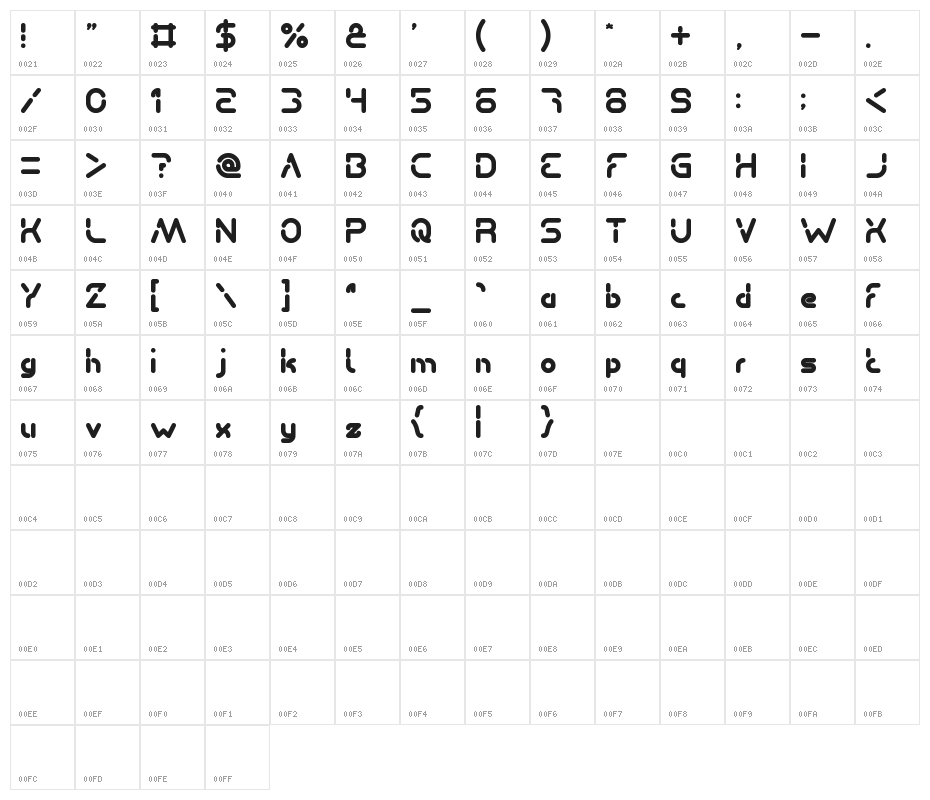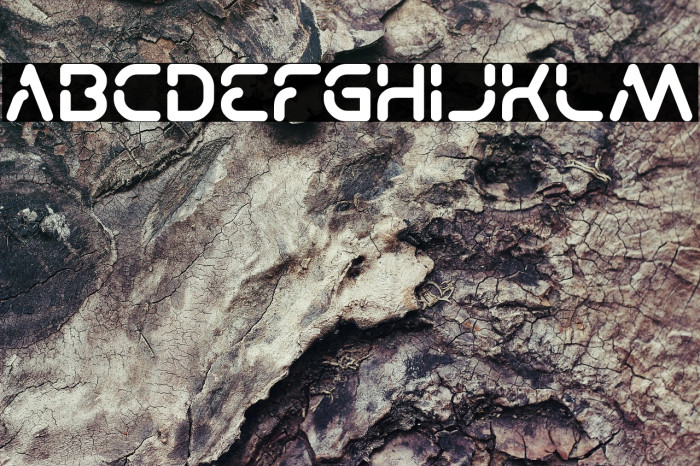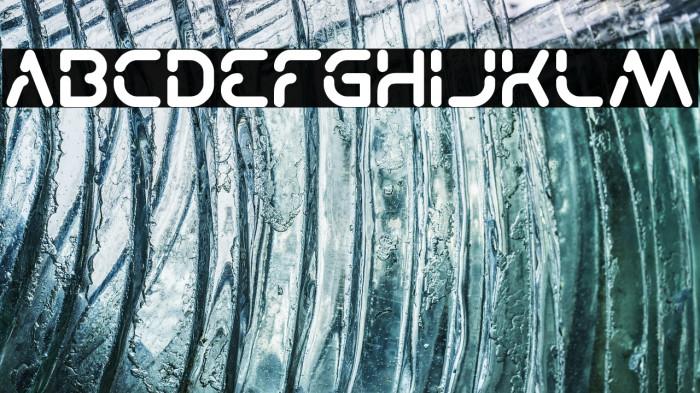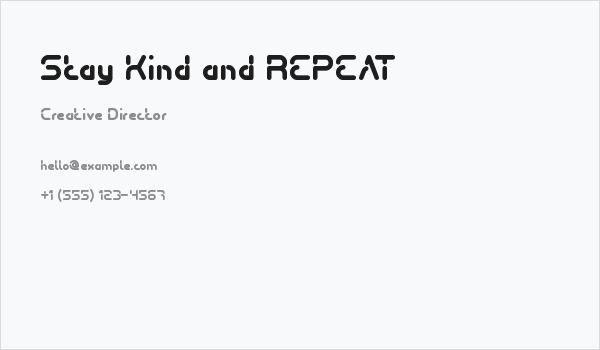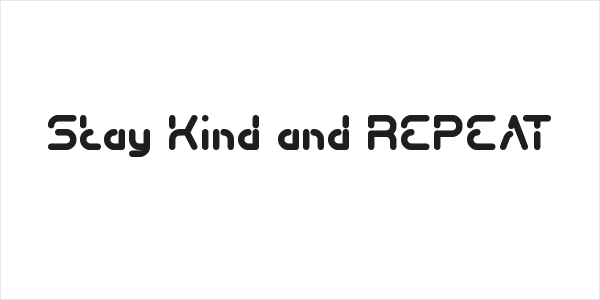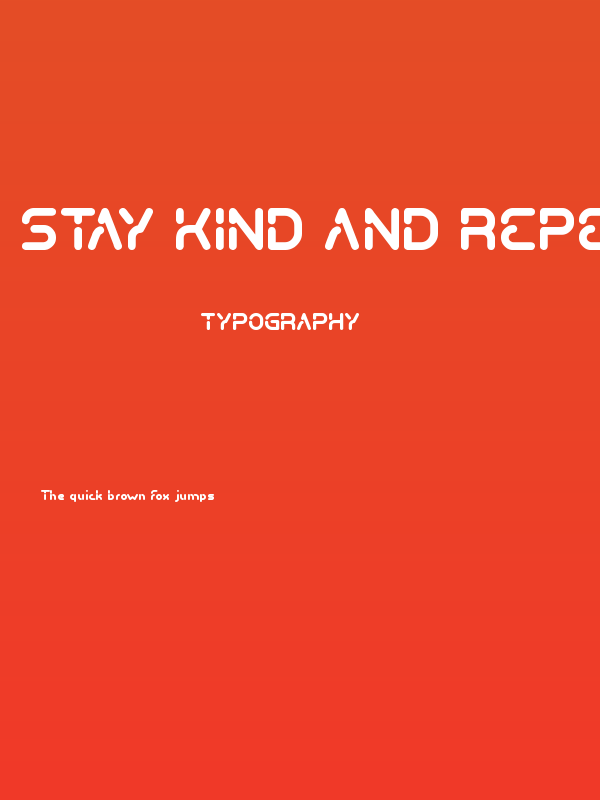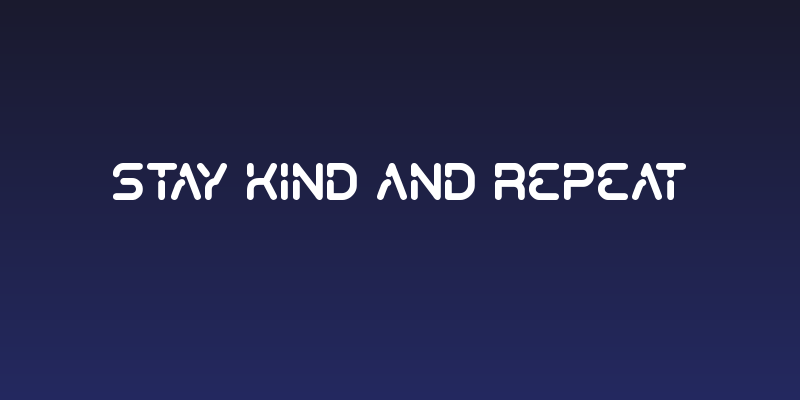
Stay Kind and REPEAT Font
Stay Kind and REPEAT Description
This font features a bold and futuristic design with rounded edges and a geometric structure. The characters are constructed with a consistent thickness, giving it a uniform appearance. The uppercase letters have a distinctive style with angular cuts and smooth curves, while the lowercase letters maintain a similar aesthetic with slightly more rounded forms. The numbers and special characters are designed to match the overall style, providing a cohesive look. This font is ideal for projects that require a modern and tech-inspired feel.
| Proposed Projects | Ideal for technology branding, sci-fi posters, video game titles, and modern advertising. |